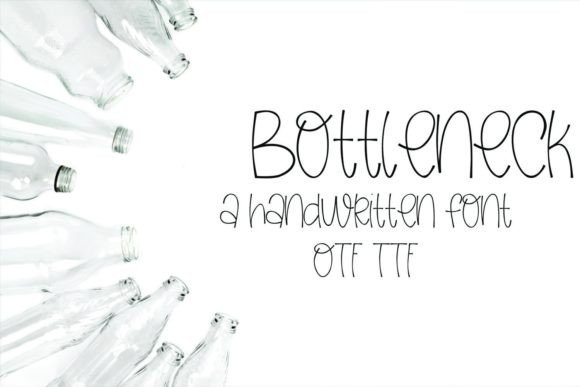
The Designer’s Delight: Unleashing the Power of Bottleneck Font
Ah, the eternal quest for the perfect font! I still remember the time I was working on a project for a crafty client who wanted a playful, handwritten font to match her brand’s fun and quirky vibe. I scoured the internet, tried out countless fonts, but none seemed to fit the bill. That was until I stumbled upon Bottleneck Font – a game-changer in the world of typography! ✨
So, what makes Bottleneck Font so special? Let’s dive into the good stuff first!
- ✅ Versatility: This font is incredibly versatile, making it suitable for a wide range of design ideas, from crafting and DIY projects to digital graphics and branding.
- ✨ Playful yet legible: Bottleneck Font strikes the perfect balance between playfulness and legibility, making it perfect for headlines, body text, and more.
- ✅ Handwritten charm: The font’s handwritten feel adds a touch of warmth and personality to any design.
Now, no font is perfect, and Bottleneck Font has its quirks:
- 🤔 Limited formal use: While Bottleneck Font is amazing for casual designs, it might not be the best choice for more formal or professional projects.
- ⚠️ Glyph limitations: Some users have reported limitations with certain glyphs or special characters, so be sure to test the font thoroughly before using it in a project.
The Story Behind Bottleneck Font
While the true story behind Bottleneck Font remains a mystery, it’s easy to imagine a designer creating this font as a labor of love. Perhaps they were inspired by the playful, handwritten signs at a local craft fair or the quirky typography on a favorite vintage poster. Whatever the inspiration, Bottleneck Font is a true gem in the world of typography! 🎨
| Font Name | Bottleneck Font |
| Author | Designs by Danielle FL |
| Does Bottleneck Font support OpenType features? | Yes, Bottleneck Font supports OpenType features like ligatures and stylistic alternates. |
| Is Bottleneck Font easy to read? | Yes, Bottleneck Font is designed to be legible and easy to read, even at smaller font sizes. |